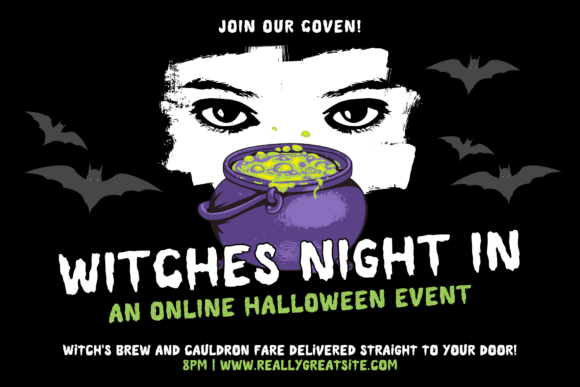
Unleash the Spookiness: Discover the Dark Thriller Font for Your Halloween Designs
As the spookiest time of the year approaches, designers and creatives are on the lookout for the perfect font to add a touch of eeriness and playfulness to their Halloween-themed projects. Look no further than the Dark Thriller Font, a decorative font that embodies the spirit of Halloween and is perfect for a wide range of designs, from blog posts and logos to invitations and decorations.
What is the Dark Thriller Font?
The Dark Thriller Font is a Halloween-themed decorative font designed to add a touch of spookiness and playfulness to your designs. Its unique and authentic style makes it the perfect choice for creatives looking to create eye-catching and engaging content.
The Many Uses of the Dark Thriller Font
The Dark Thriller Font is incredibly versatile and can be used in a wide range of projects, including:
- Blog posts: Add a touch of Halloween spirit to your blog posts and make them stand out from the crowd.
- Logos and branding: Create a memorable and spooky logo for your business or brand.
- Ads: Make your advertisements stand out with a font that’s sure to grab attention.
- Invitations: Create spooky and inviting invitations for Halloween parties and events.
- Greeting cards: Add a touch of eeriness to your Halloween greeting cards.
- Planners and photo albums: Add a personal touch to your planners and photo albums with a spooky font.
- Decorations: Use the Dark Thriller Font to create spooky decorations for your home or office.
The Benefits of Using the Dark Thriller Font
The Dark Thriller Font offers a range of benefits, including:
- Playfulness and authenticity: The font’s unique style adds a touch of playfulness and authenticity to your designs.
- Versatility: The font can be used in a wide range of projects, from digital designs to print materials.
- Attention-grabbing: The font’s spooky style is sure to grab attention and make your designs stand out.
Tips for Using the Dark Thriller Font
Here are a few tips for getting the most out of the Dark Thriller Font:
- Use it sparingly: Use the font sparingly to add a touch of spookiness to your designs.
- Experiment with colors: Experiment with different colors to find the perfect combination for your design.
- Pair it with other fonts: Pair the Dark Thriller Font with other fonts to create a unique and eye-catching design.